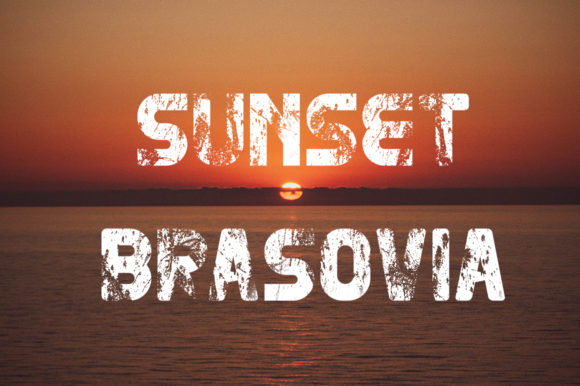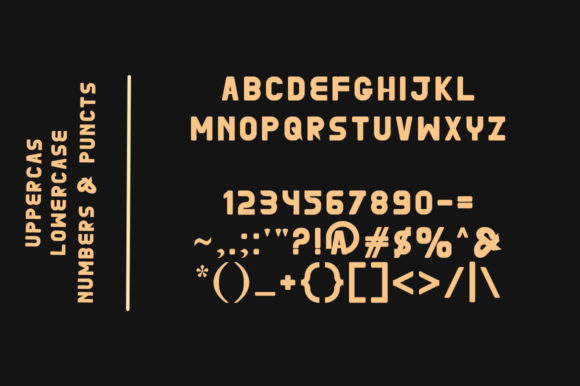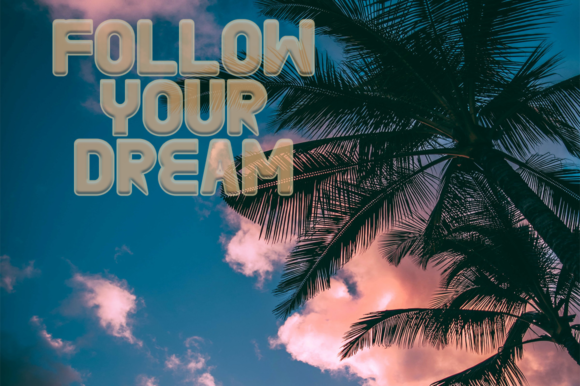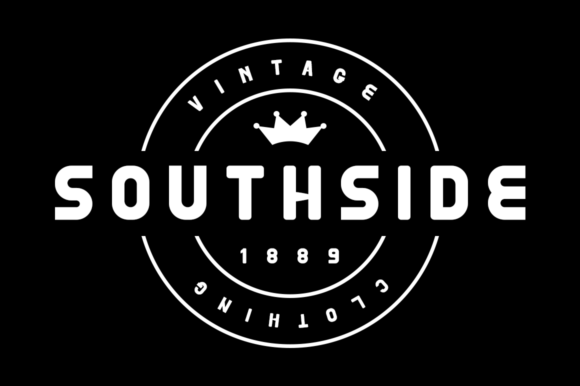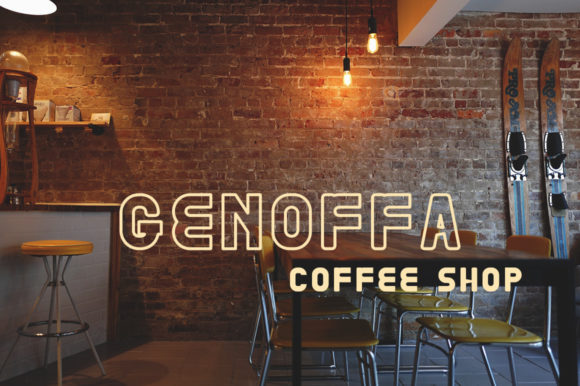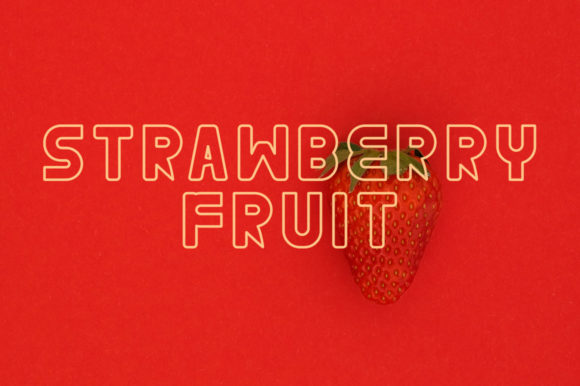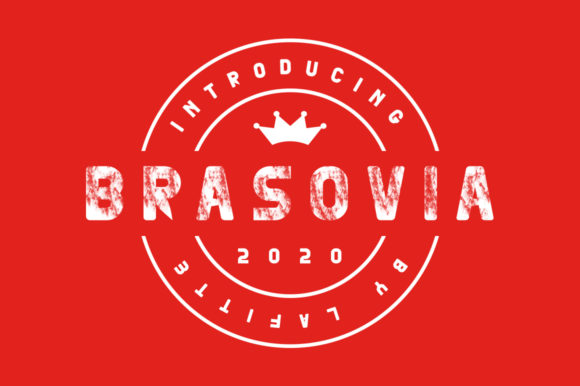
Brasovia Font: Elevate Your Designs with a Fun, Bold, and Vintage Flair
In the world of typography, fonts play a crucial role in making or breaking a design. A well-chosen font can instantly elevate your creation, adding a touch of personality and style that sets it apart from the rest. If you’re a designer or crafter looking to add a dash of fun, boldness, and vintage charm to your work, look no further than the Brasovia Font.
What is Brasovia Font?
Brasovia is a display font that embodies the perfect blend of playfulness, boldness, and vintage sophistication. With its unique character set and stylish aesthetic, this font is sure to become an incredibly valuable asset to your font library. Whether you’re working on a branding project, crafting a poster, or designing a digital product, Brasovia Font is the perfect choice to add a touch of whimsy and flair.
Key Features of Brasovia Font
- Fun and Playful: Brasovia Font boasts a fun and playful vibe that’s perfect for designs that require a lighthearted touch. Its bold and eye-catching style ensures that your text will stand out and grab attention.
- Bold and Statement-Making: This font is not for the faint of heart! Brasovia Font is bold, confident, and makes a statement. Use it to add emphasis, create a focal point, or simply to make a bold declaration.
- Vintage Styled: With its retro flair and classic charm, Brasovia Font is perfect for designs that require a vintage or distressed look. Its unique character set and stylish aesthetic evoke a sense of nostalgia and timelessness.
- Versatile: Despite its bold and playful nature, Brasovia Font is surprisingly versatile. Use it for a wide range of design projects, from branding and advertising to packaging and digital products.
Why Choose Brasovia Font?
So, what sets Brasovia Font apart from other fonts in its category? Here are just a few reasons why designers and crafters love this font:
- Unique Character Set: Brasovia Font boasts a unique character set that’s both stylish and distinctive. Its bold and playful style ensures that your text will stand out and be remembered.
- Easily Readable: Despite its bold and decorative nature, Brasovia Font is surprisingly easy to read. This makes it perfect for designs that require a clear and concise message.
- Highly Versatile: Whether you’re working on a digital product or a print project, Brasovia Font is the perfect choice. Its bold and playful style works well in a variety of contexts, from large headlines to smaller body text.
How to Use Brasovia Font in Your Designs
- Headlines and Titles: Use Brasovia Font to create bold and eye-catching headlines that grab attention and make a statement.
- Branding and Logo Design: Add a touch of personality and whimsy to your brand identity with Brasovia Font. Its unique character set and stylish aesthetic make it perfect for logos, business cards, and other branding materials.
- Posters and Flyers: Create eye-catching posters and flyers with Brasovia Font. Its bold and playful style ensures that your message will stand out and be remembered.
- Digital Products: Use Brasovia Font to add a touch of personality and style to your digital products, from website headers to social media graphics.